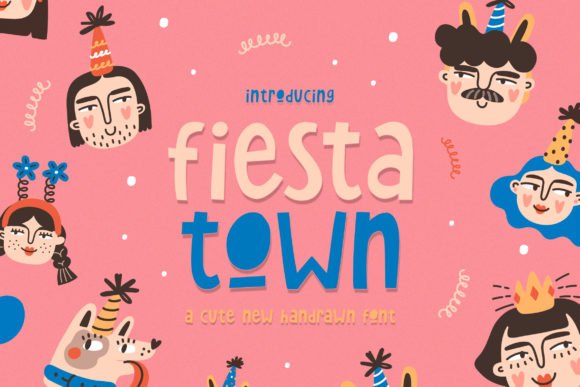
Introduction to Fiesta Town Font
Fiesta Town is a cute and playful display font.
👤 Author Salt and Pepper Fonts
This font is perfect for children themed designs, especially when combined with bright colors .